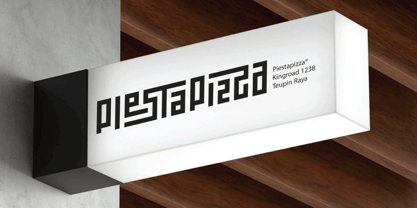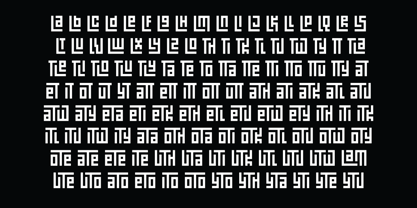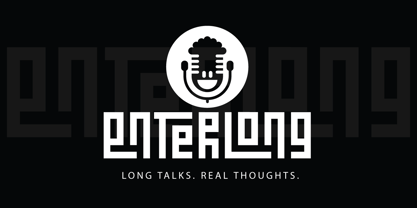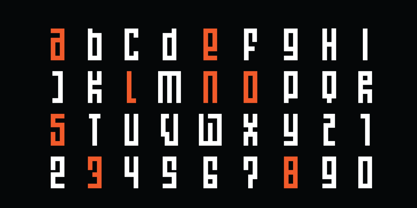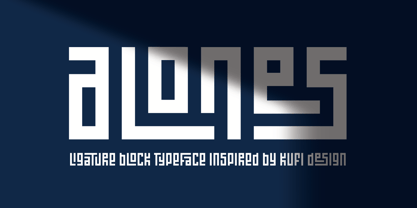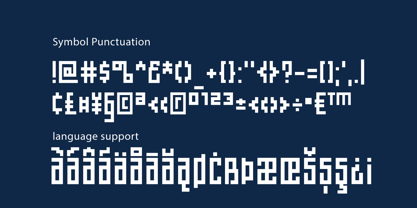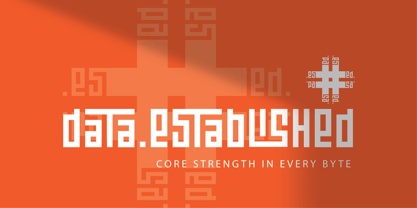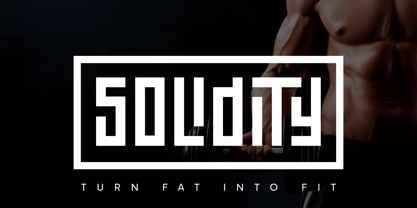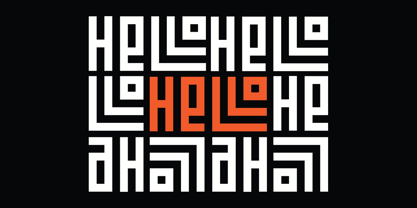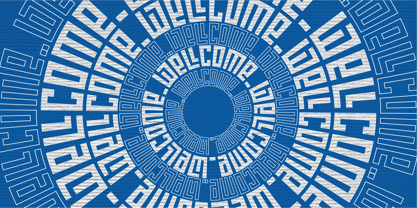
Alones
Die Schriftfamilie Alones wurde von Muhammad Ridha Agusni, Muhammad Mevlana Maliq Azizi entworfen und von MMMA Creative veröffentlicht. Alones enthält 1 Stile.
Alones is a refined display typeface inspired by the traditional Khufi style of Arabic calligraphy, reimagined in a modern Latin form. Built upon the harmony of vertical and horizontal strokes, it reflects the structural beauty and balance characteristic of Kufi letterforms. Its true charm lies in the lowercase set, featuring over 200 contextual ligatures that create seamless and unexpected letter combinations. Designed to bridge artistry and clarity, Alones offers two distinct expressions within one system. Use uppercase for the base form and lowercase for creative flow. A unique and versatile typeface that every designer deserves to have in their collection.
Designer: Muhammad Ridha Agusni, Muhammad Mevlana Maliq Azizi